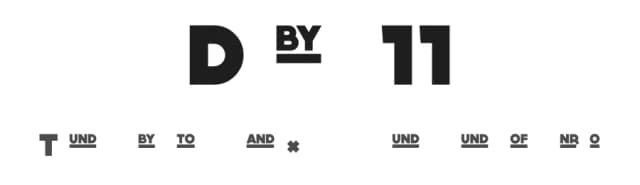
About Luco Sans Font
Luco Sans is a sans-serif font designed by artill.de. It includes 124 glyphs, a black weight, TTF (TrueType) format, and 111 languages. Luco Sans is free to download; check the license details on this page before commercial use. Sans-serif fonts like Luco Sans work best for clean body text, user interfaces, branding, and modern layouts.
| Designer | Lukas Bischoff |
Luco Sans Font is a versatile sans-serif font that works for both headings and body text. Pair it with a contrasting serif or slab serif font to add visual interest and a clear distinction between titles and body copy.
Luco Sans Font
by artill.de